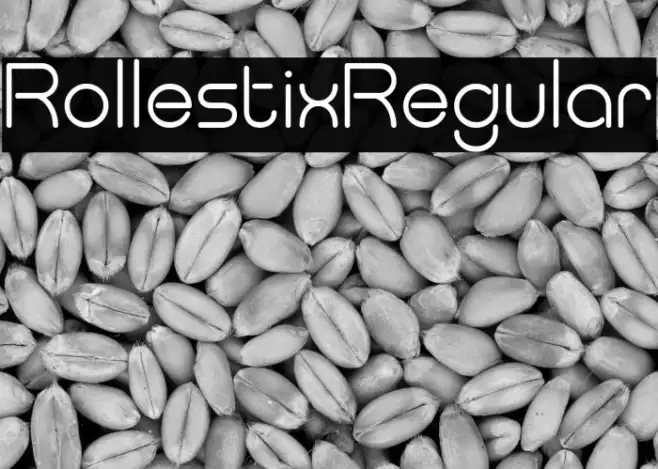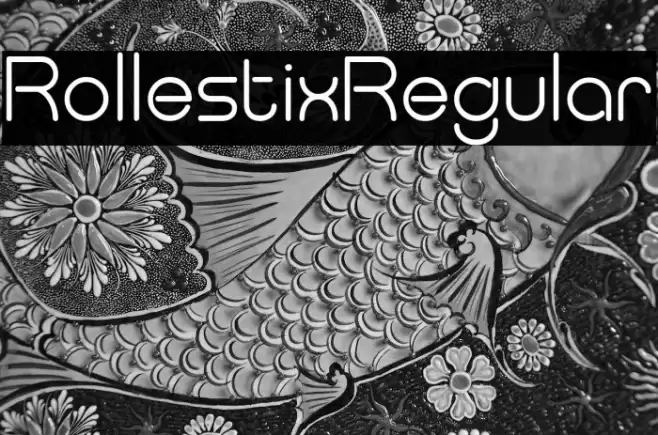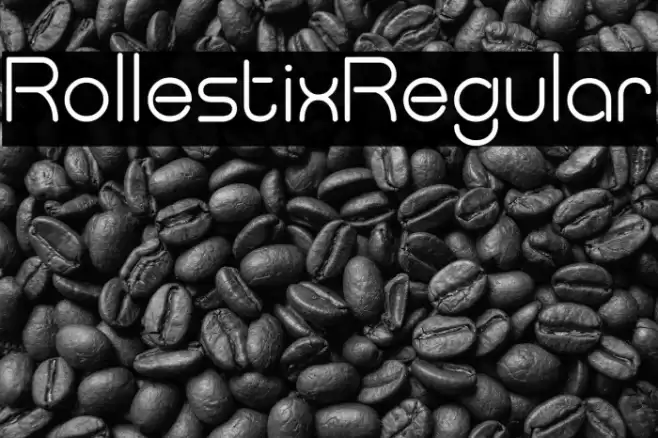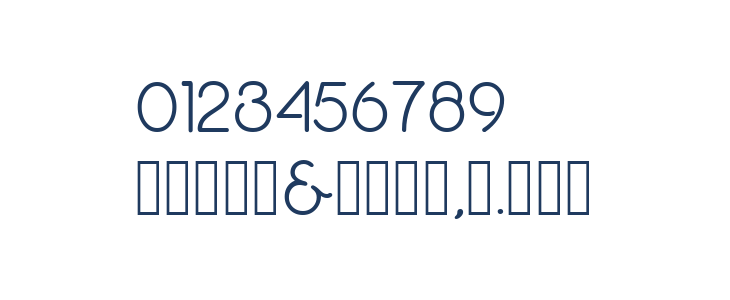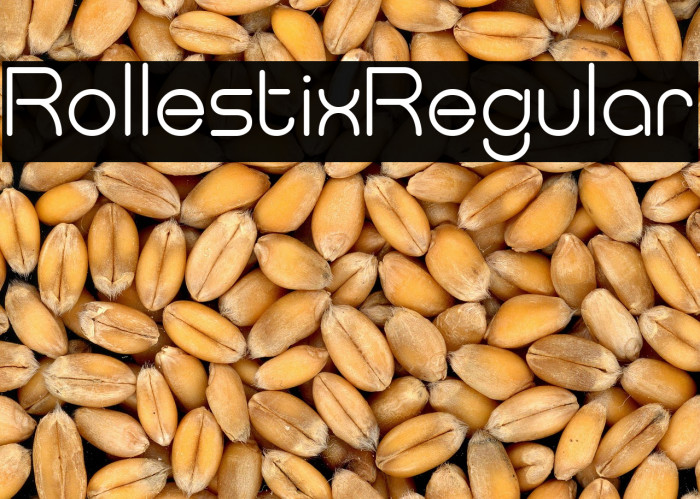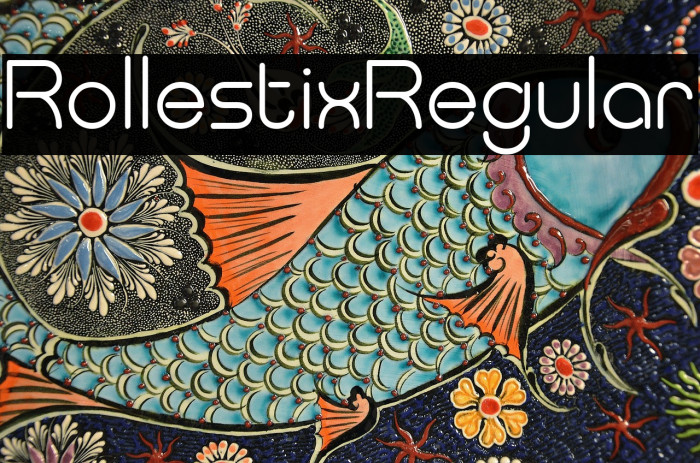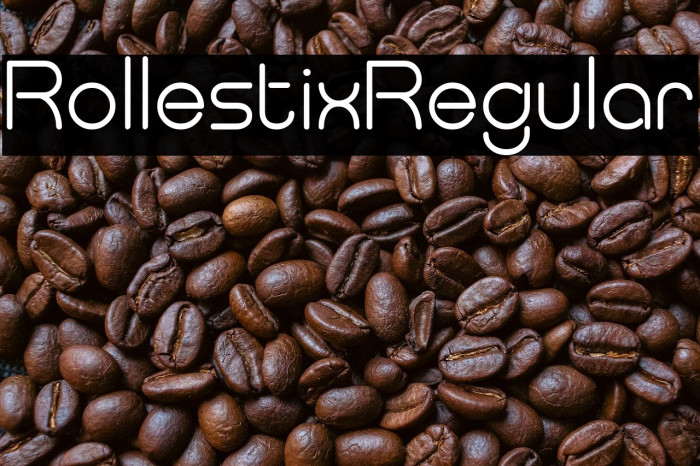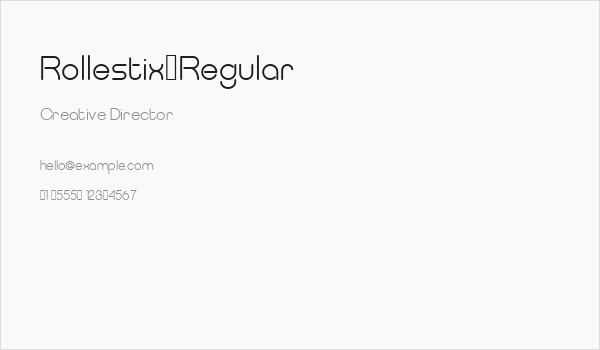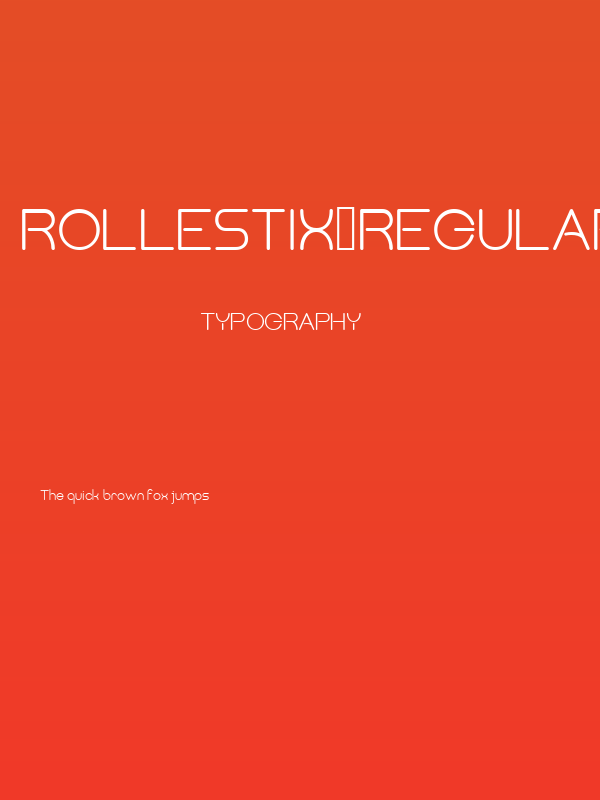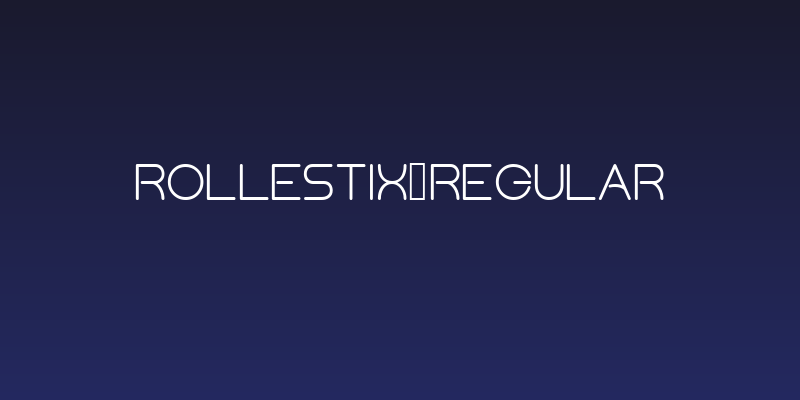
Rollestix-Regular Font
Rollestix-Regular Description
This font features a modern and sleek design with a geometric and minimalistic approach. The characters are formed with clean, continuous lines that create a sense of fluidity and movement. The uppercase letters are bold and structured, while the lowercase letters maintain a consistent roundness and simplicity. The numerals are clear and easy to read, complementing the overall aesthetic. Special characters are uniquely styled to match the font's modern look, making it versatile for various design applications.
A modern, geometric font with sleek, continuous lines and a minimalistic style from Regular fonts.
- Proposed Projects: Ideal for branding, logos, modern web design, and editorial layouts that require a clean and contemporary look.
- Use Case: Logos, Headlines, Branding